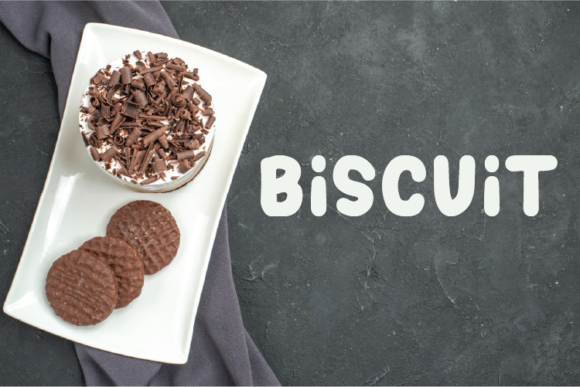
The Perfect Pairing for Your Next Creative Project
Have you ever sat in front of your computer, staring blankly at a blank page, desperately searching for the perfect font to bring your idea to life? We’ve all been there. But what if we told you that the perfect pairing is just a click away? Introducing Biscuit Font, a natural and neat handwritten font that’s about to become your new go-to companion for any creative project.
Biscuit Font is designed to elevate your work, whether you’re designing a logo, a brochure, or even a simple social media post. Its unique, handwritten style adds a touch of warmth and personality to any design, making it the perfect choice for anyone looking to add a human touch to their work. With Biscuit Font, you’ll be able to create designs that truly stand out from the crowd.
Biscuit Font Key Features
- Font Family: Biscuit Font is a unique, hand-drawn font that offers a warm and inviting aesthetic.
- Unique Characteristics: The font’s hand-drawn design and subtle imperfections give it a charming, human touch, making it perfect for creative projects that require a personal touch.
Biscuit Font Review
I was excited to dive into the “Biscuit Font” and see what it had to offer. Overall, I think this font has some great qualities that make it a solid choice for certain projects. Here are some things that stand out:
- ✨ Unique character: Biscuit Font has a distinct personality that sets it apart from other fonts. Its quirky, hand-drawn feel can add a touch of whimsy to your designs.
- ✨ Good for creative projects: The font’s eclectic nature makes it perfect for creative projects like illustrations, children’s books, or even menu designs.
- ✨ Wide language support: Biscuit Font supports a wide range of languages, making it a great option for international designs.
- ⚠️ Limited legibility: In certain contexts, the font’s irregular shape and spacing can make it difficult to read. Be mindful of using it for large blocks of text.
- ⚠️ Not ideal for body text: Due to its playful nature, Biscuit Font may not be the best choice for large amounts of body text. It’s better suited for headlines or short phrases.
Overall, I think the “Biscuit Font” is a fun and unique addition to any designer’s toolkit. While it may not be the best choice for every project, it’s perfect for creative endeavors where a touch of personality is needed. With some careful consideration, you can make the most of this charming font.
Biscuit Font is commonly used for:
– Blog post titles and headings
– Branding and marketing materials
– Any design where a playful, whimsical feel is desired.